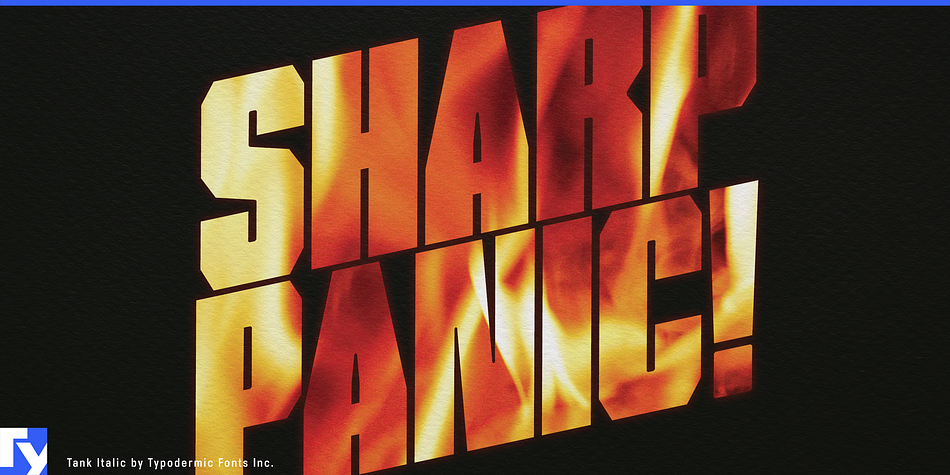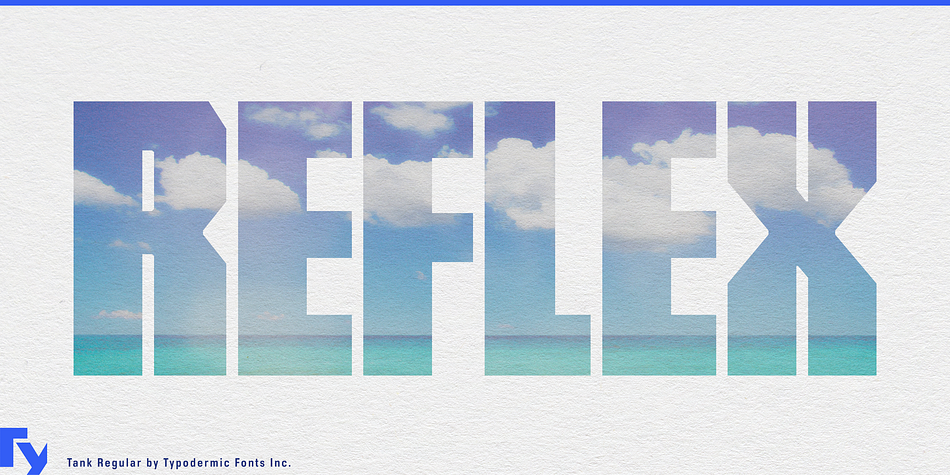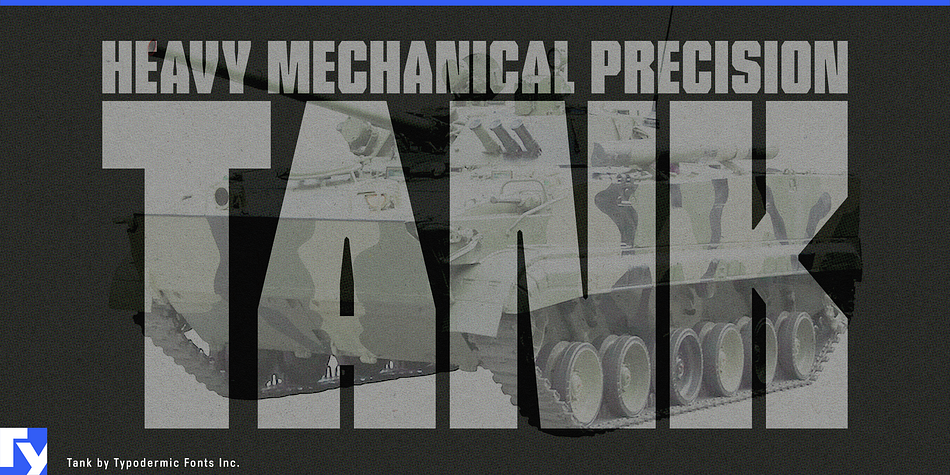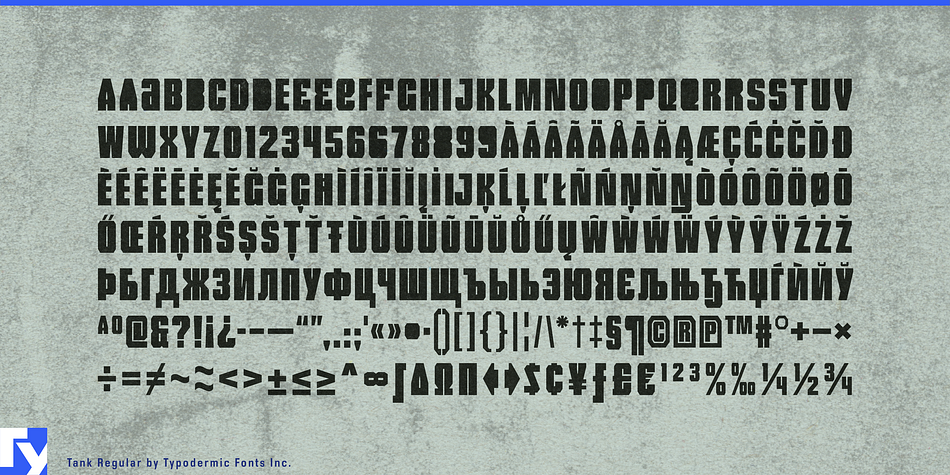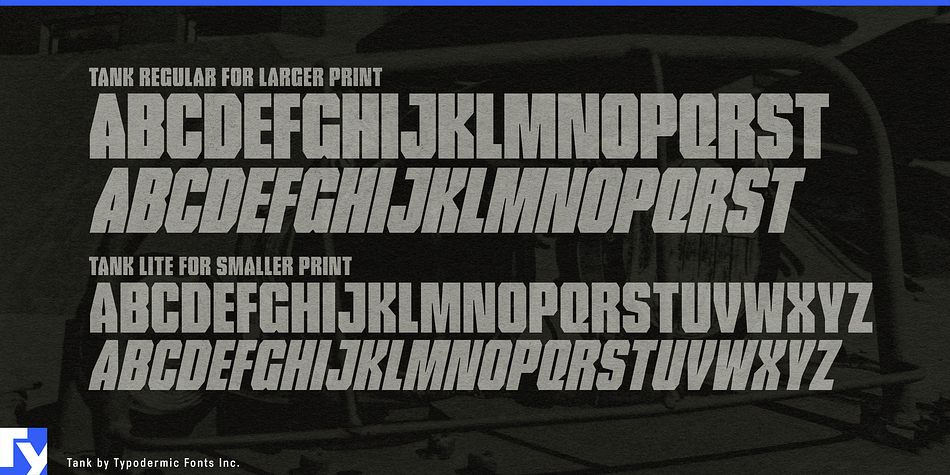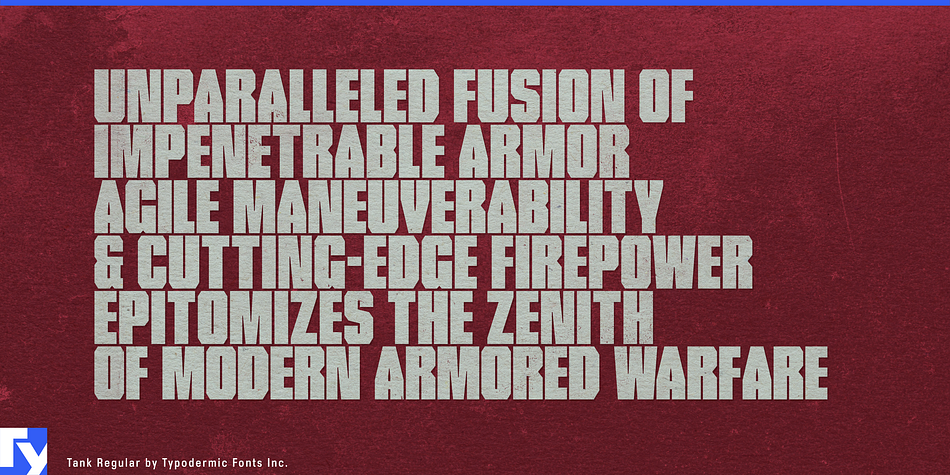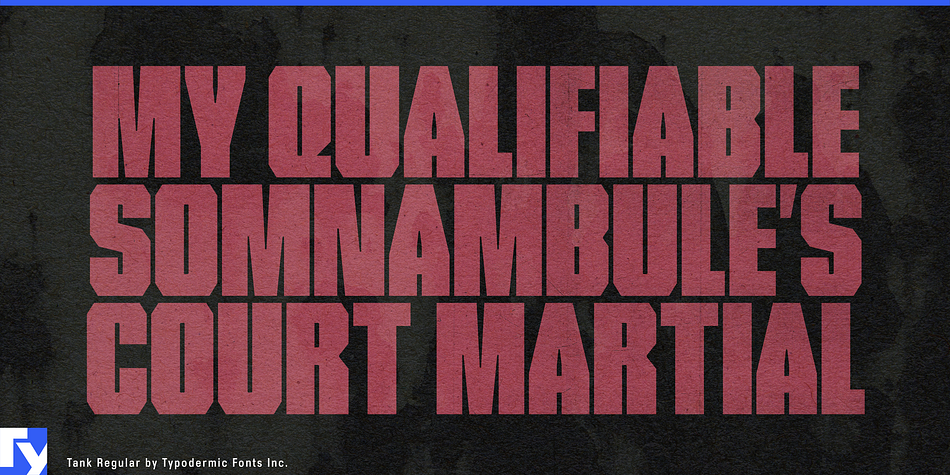
Tank is a display sans font family. This typeface has four styles and was published by Typodermic Fonts Inc.
Tank has a heavy mechanical look and tight spacing for a precision effect.